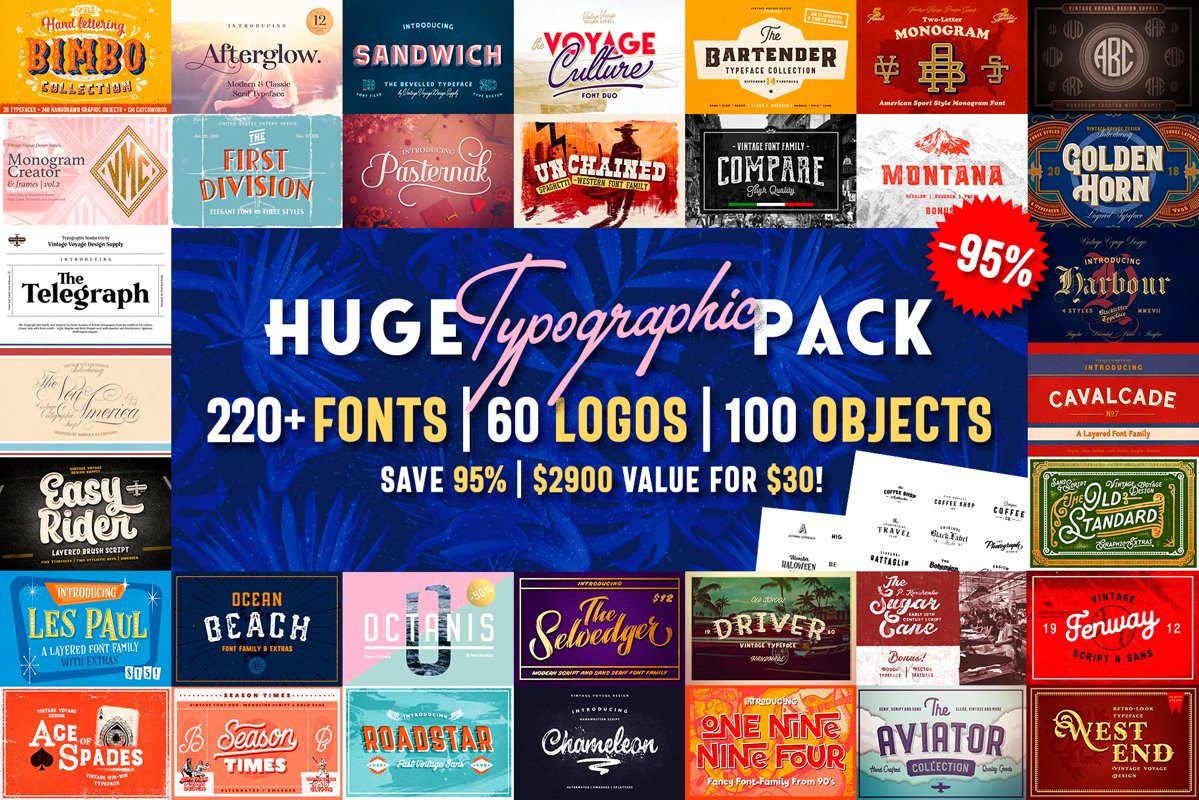
Save 95%! Huuuuge Typographic Pack, so grab it!This pack includes all my fonts I've ever created + 60 unique logo templates based on these fonts. I've even included my best-selling fonts, like Bartender, Afterglow, Montana and Telegraph, in this bundle. Huge Typographic Pack have a wide selection of different styles, you are sure to find what you need. Regular, Light, Bold, Condensed / Serif, Sans, Script, Slab / Monograms / Cartoon and Fancy!Huge Typographic Pack also includes 60 pre-made typographic logos and 100 vector graphic elements. You can edit these logos in Adobe Photoshop (.psd) or Adobe Illustrator (.ai cs-cc). Most of the fonts come in OTF and TTF font files but some of the fonts only have a TTF due to complexity.
Typefaces included:
- The Selvedger https://crmrkt.com/X9jQvG
- Driver https://crmrkt.com/AgQMqG
- Winter Holidays https://crmrkt.com/5jPMwK
- Stout https://crmrkt.com/oG2B1X
- US Navy https://crmrkt.com/0yQAJN
- Canyons https://crmrkt.com/R2owVm
- The Heart of Gold https://crmrkt.com/qM6J1Q
- The Forest Tramp https://crmrkt.com/vlRw16
- La Fa Salt https://crmrkt.com/JqbzM5
- RISE https://crmrkt.com/OOypMO
- Jack’s Guitar https://crmrkt.com/7OPMb3
- The Bough https://crmrkt.com/GKVRbz